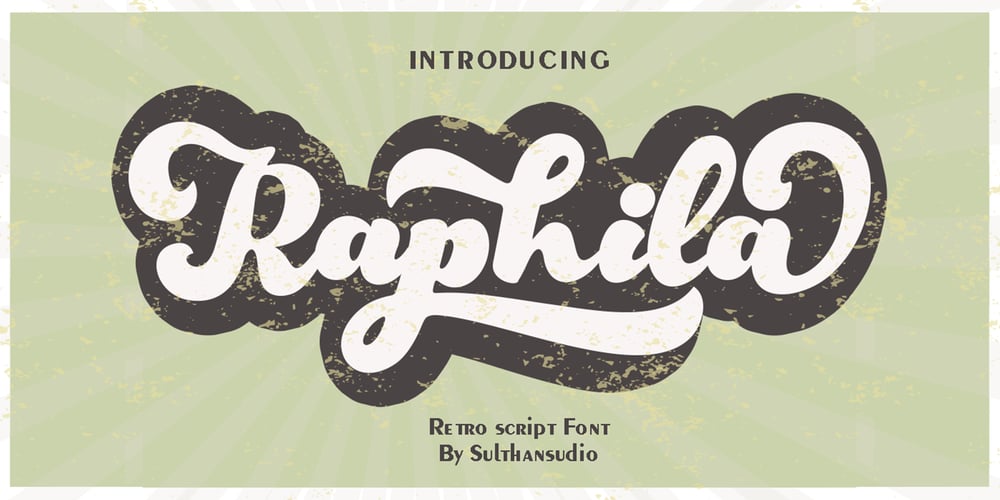
Raphila Font Family was designed by Nasrullah and published by Sulthan Studio. Raphila contains 1 styles and family package options. Raphila Retro is a vintage retro font inspired by retro typography and letters of the 70s and 80s combined with a bold typographic style.This font is perfect for vintage and retro designs, badges, logos, t-shirts, posters, branding, packaging, signs, book covers, and more! This font is PUA coded, which means you can access all the glyphs and swashes easily!